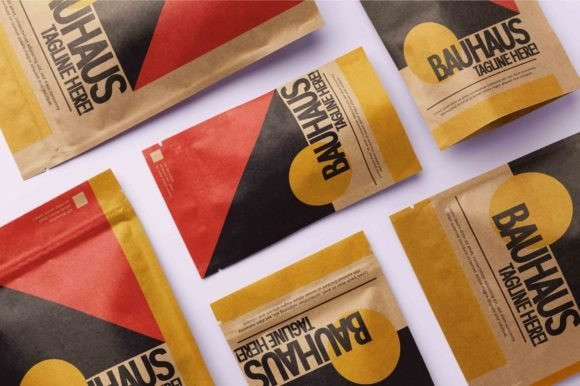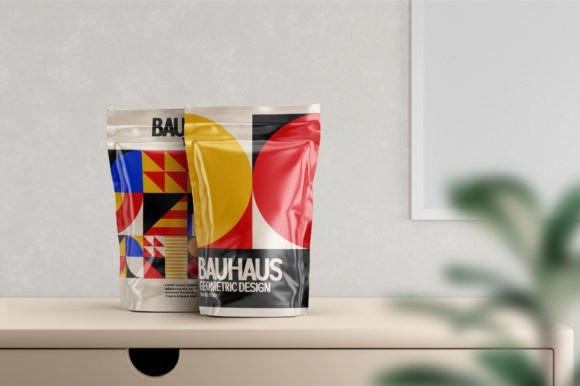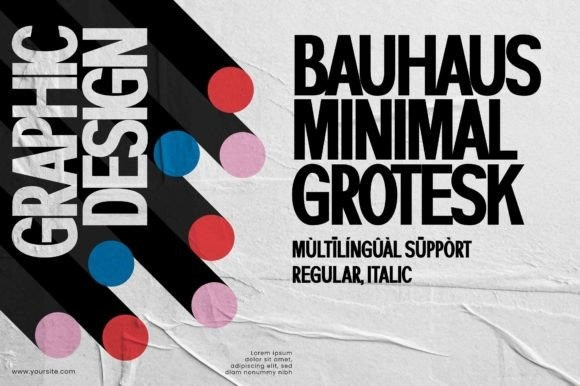
Bauhaus Sans Font
Bauhaus Sans Font is a clean, tall, and grotesque sans serif typeface. Its amazing minimalistic appearance renders it a vital choice when you want to opt-in for a clean minimalistic design. It can be used in various contexts, such as packaging design, product design, die-cutting design, fashion design, perfume, and cosmetics design. With its minimalist style, this typeface is suitable for a wide range of creative ideas.